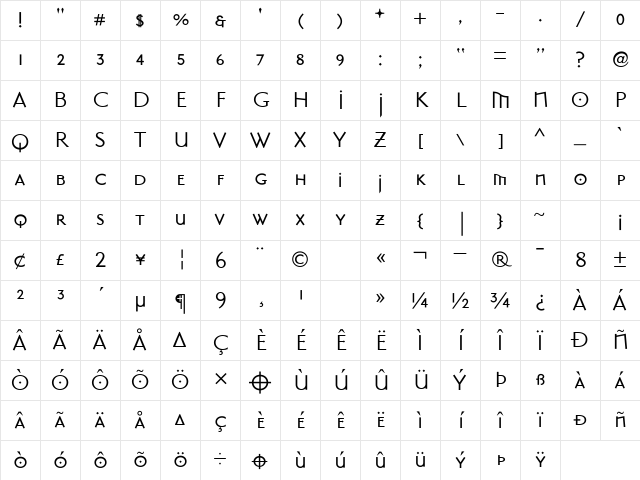
MasonSansAlternate Roman
Design Context for MasonSansAlternate
MasonSansAlternate is a composed and adaptable typeface that performs quietly and consistently across a wide range of design contexts.
Pro Tip: Use MasonSansAlternate in both headline and body roles to test its range before committing to a single application.